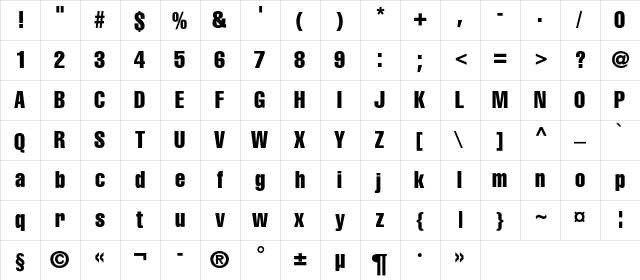
AGLettericaCompressedC Regular
Design Context for AGLettericaCompressedC Typeface
AGLettericaCompressedC is a composed and adaptable typeface that performs quietly and consistently across a wide range of design contexts.